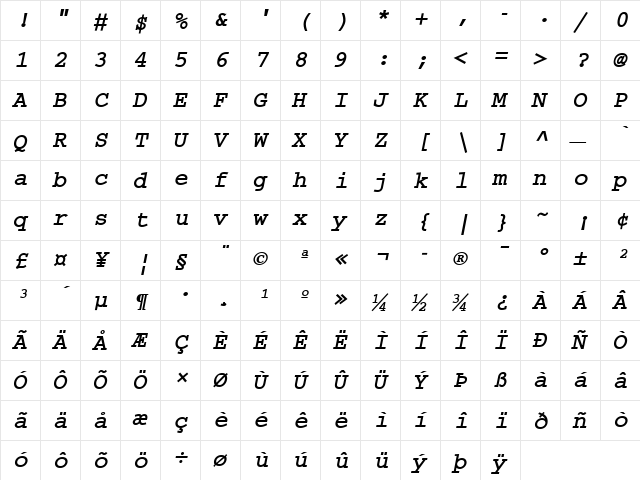
Ethiopic WashRa SemiBold Slant SemiBold
| Designer | abass alamnehe |
Design Context for Ethiopic WashRa SemiBold Slant Typeface
Ethiopic WashRa SemiBold Slant takes a measured approach to typography — its balanced proportions and neutral character make it a reliable workhorse for both digital and print work. The heavy weight commands attention and anchors typographic hierarchies.